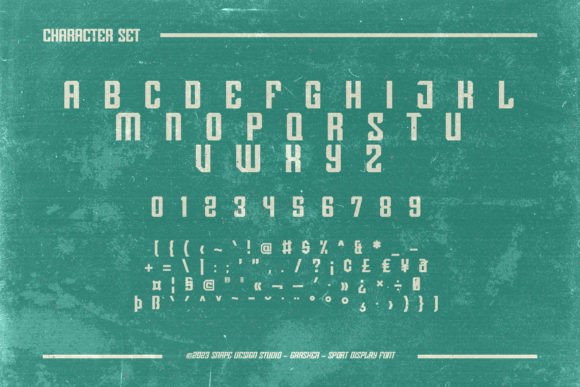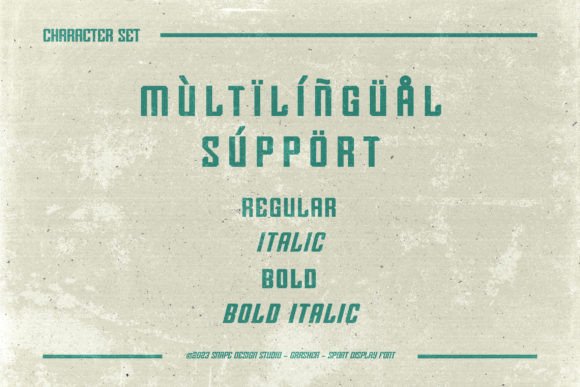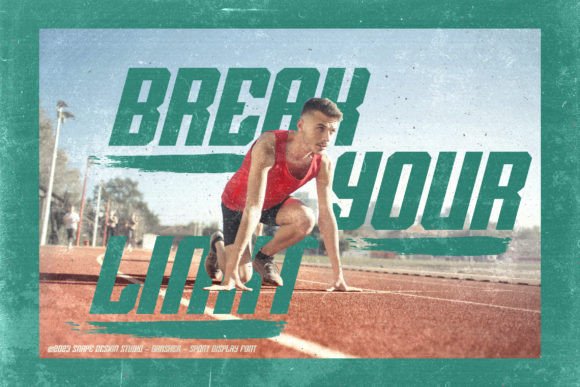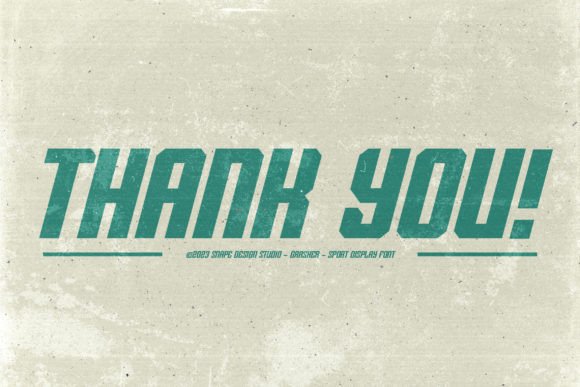
Grasher Font: Elevate Your Sport-Inspired Designs with a Bold and Powerful Typeface
Are you looking for a font that can add a vibrant touch to your sport-inspired designs? Do you want to create bold and eye-catching projects that demand attention? Look no further than Grasper Font, a sport font designed to highlight any project that requires a powerful feel. In this article, we’ll explore the features and benefits of Grasper Font, and how it can elevate your designs to the next level.
What is Grasper Font?
Grasper Font is a sport font that is specifically designed to add a bold and powerful feel to your designs. Created with the intention of drawing attention, Grasper Font is perfect for projects that require a vibrant touch. Whether you’re working on a sports team logo, a book cover, or a headline, Grasper Font is the perfect choice.
Key Features of Grasper Font
So, what makes Grasper Font so special? Here are some of its key features:
- Bold and Powerful: Grasper Font is designed to make a statement. Its bold and powerful strokes are perfect for creating eye-catching designs that demand attention.
- Sport-Inspired: As a sport font, Grasper Font is perfect for sports team logos, jerseys, and other sport-inspired designs.
- Versatile: Grasper Font is not just limited to sports designs. It’s also perfect for book covers, headlines, titles, and many more projects.
- Easy to Read: Despite its bold strokes, Grasper Font is easy to read, making it perfect for designs that require a clear and concise message.
Benefits of Using Grasper Font
So, why should you choose Grasper Font for your designs? Here are some of the benefits of using this amazing font:
- Stand Out from the Crowd: With Grasper Font, you can create designs that stand out from the crowd. Its bold and powerful strokes are sure to grab attention and make your designs memorable.
- Professional Look: Grasper Font gives your designs a professional look that’s perfect for sports teams, businesses, and organizations.
Tips and Tricks for Using Grasper Font
Here are some tips and tricks for using Grasper Font:
- Use it Boldly: Grasper Font is designed to be used boldly. Don’t be afraid to experiment with different font sizes and styles.
- Pair it with Other Fonts: Grasper Font can be paired with other fonts to create a unique and interesting design.
- Experiment with Colors: Grasper Font looks great in a variety of colors. Experiment with different colors to find the one that works best for your design.
| Font Name | Grasher Font |
| Author | snapedsgn |